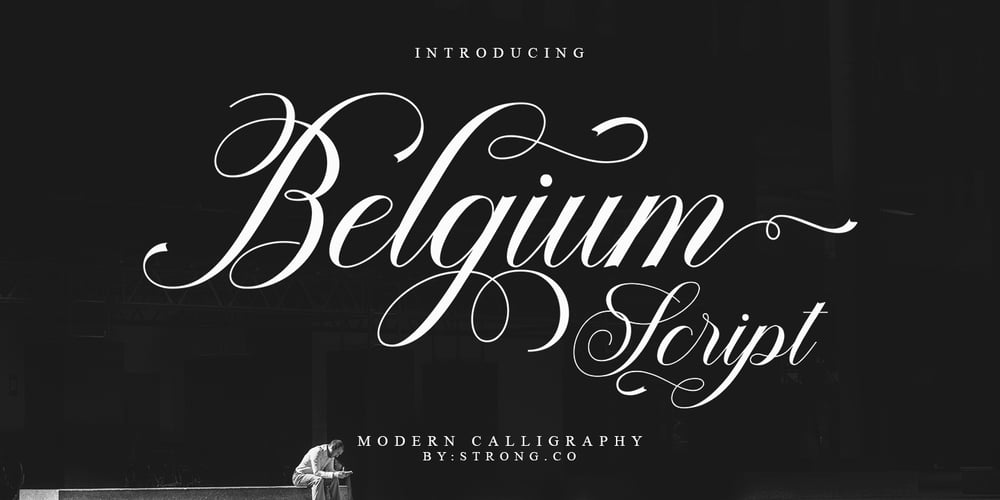
Belgium Script
Belgium Script font
Belgium Script Font Family was designed by Nanda Putra Sukmayadi and published by Strong. Belgium Script contains 1 styles and family package options. Belgium Script Script is the font of choice for writing things beyond words. This typeface is designed with great detail to convey stylish elegance. So, it can be said, the character of the transformation is very beautiful, a kind of classic ornamental copper script.The Belgium Script bergamote script provides alternative variants of most fonts, binders, and many calligraphy tips, ideal for elegant labels, high-end packaging, stationery and compositions for certain brands, beautiful titles, verses, letters and short text, intended for read only with the eyes or meant to be whispered into someone’s ear.To enable the OpenType Stylistic alternative, you need a program that supports OpenType features such as Adobe Illustrator CS, Adobe Indesign & CorelDraw X6-X7, Microsoft Word 2010 or a later version. (Windows), Font Book (Mac) or a software program such as PopChar (for Windows and Mac).How to access all alternative characters using Adobe Illustrator:https://www.youtube.com/watch?v=XzwjMkbB-wQHow to use the font style set in Microsoft Word 2010 or later versions:https://www.youtube.com/watch?v=NVJlZQ3EZU0There are additional ways to access the alternative/swash, using the Character Map (Windows), Nexus Font (Windows) Font Book (Mac) or a software program such as PopChar (for Windows and Mac).How to access all alternative characters, using the Windows Character Map with Photoshop:https://www.youtube.com/watch?v=Go9vacoYmBwIf you need help or advice, please contact me by emailThank you for watching!